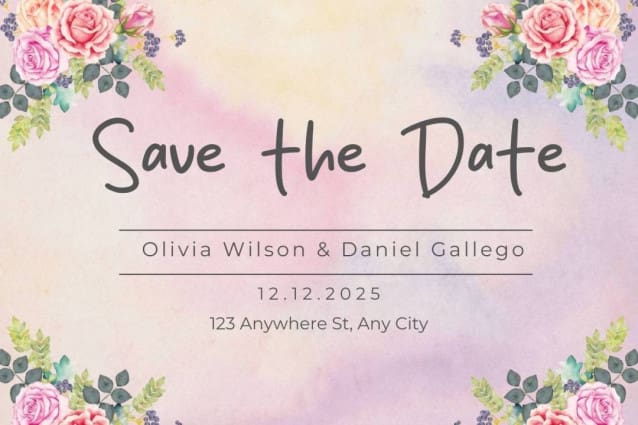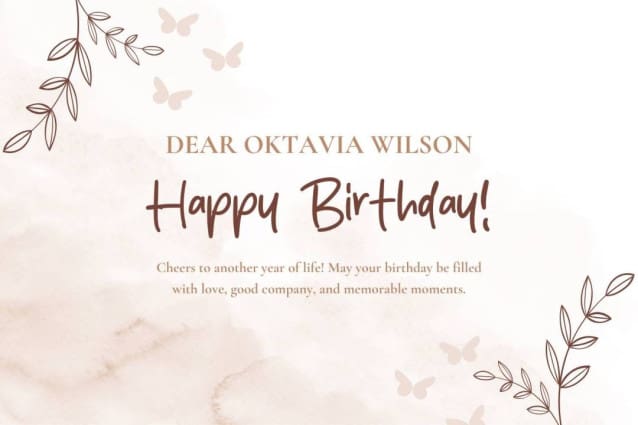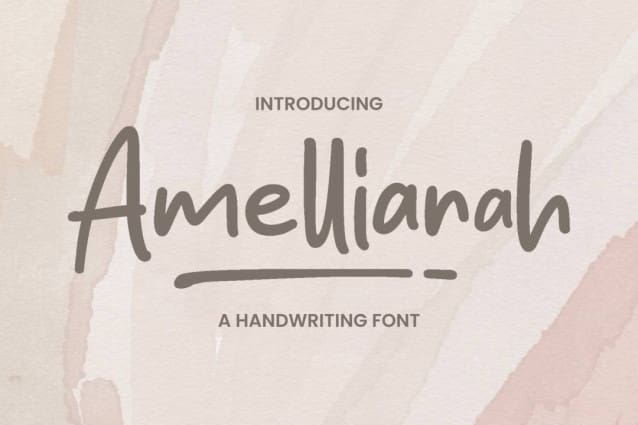
Amellianah Font
Amellianah Font is a simple and friendly handwritten font. Its natural and unique style makes it incredibly fitting to a large pool of designs. The only limit is your imagination!